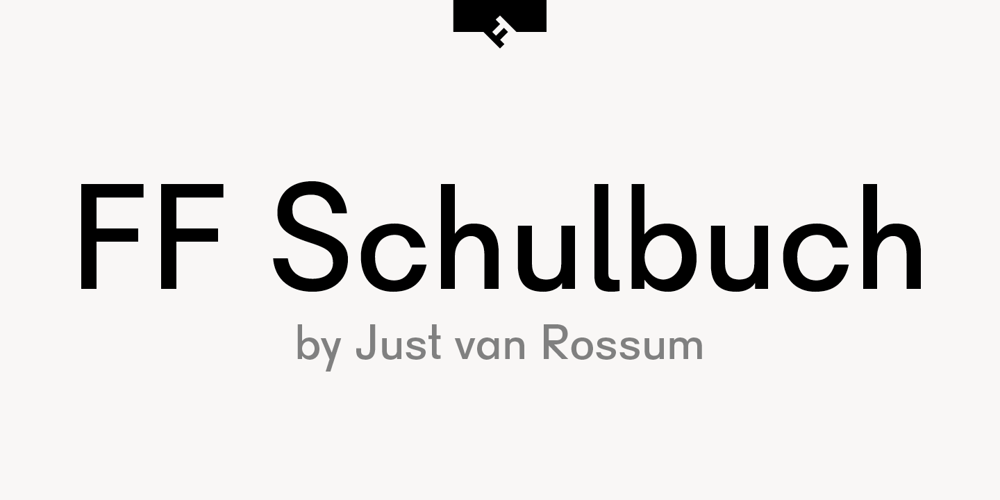
FF Schulbuch Font Family was designed by Just van Rossum and published by FontFont. FF Schulbuch contains 6 styles and family package options. Dutch type designer Just van Rossum created this sans FontFont in 1991. The family has 6 weights, ranging from Regular to Bold and is ideally suited for advertising and packaging, book text, film and tv, editorial and publishing as well as logo, branding and creative industries. FF Schulbuch provides advanced typographical support with features such as ligatures, alternate characters, case-sensitive forms, fractions, super- and subscript characters, and stylistic alternates. It comes with tabular lining and proportional lining figures.